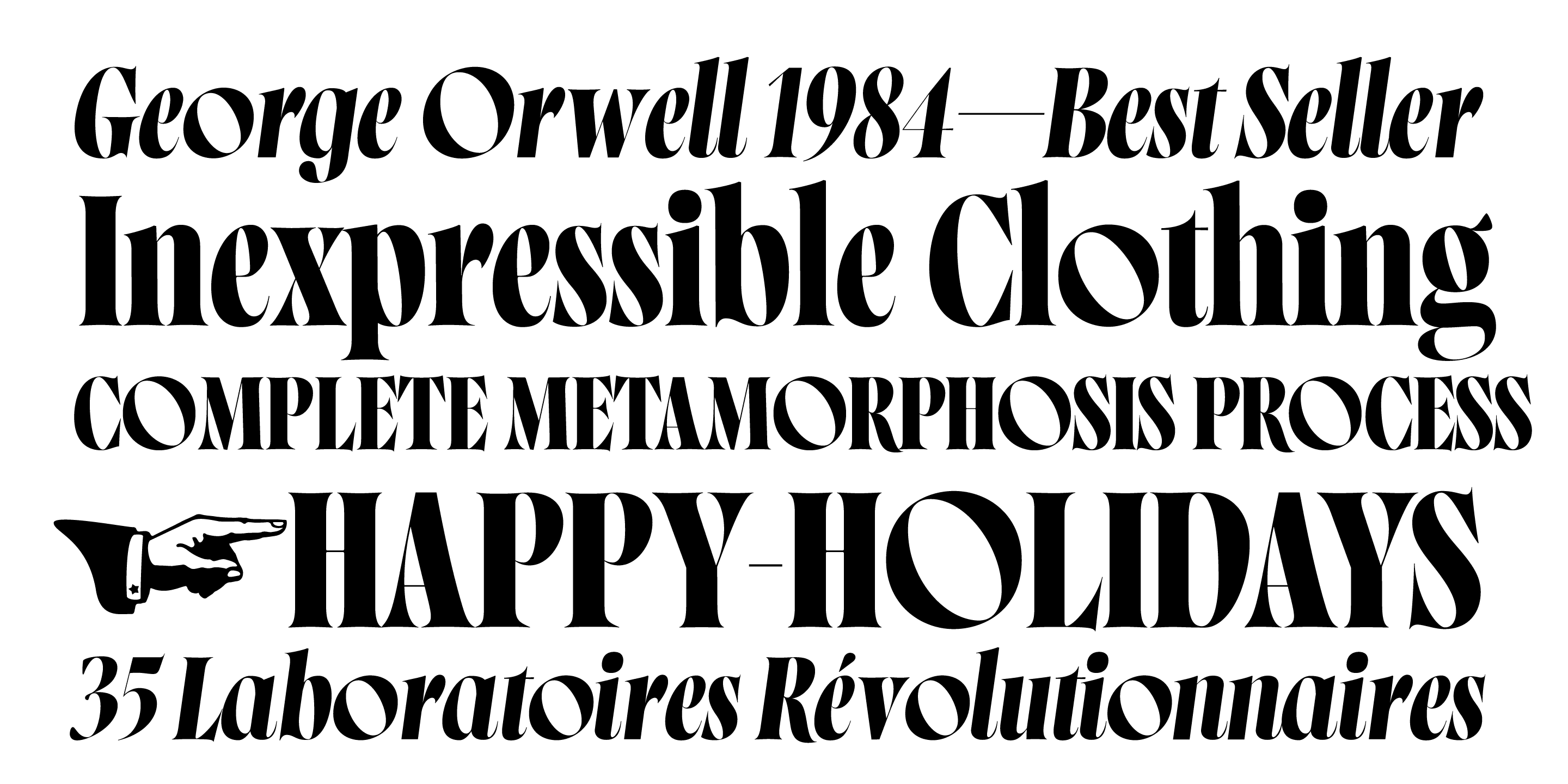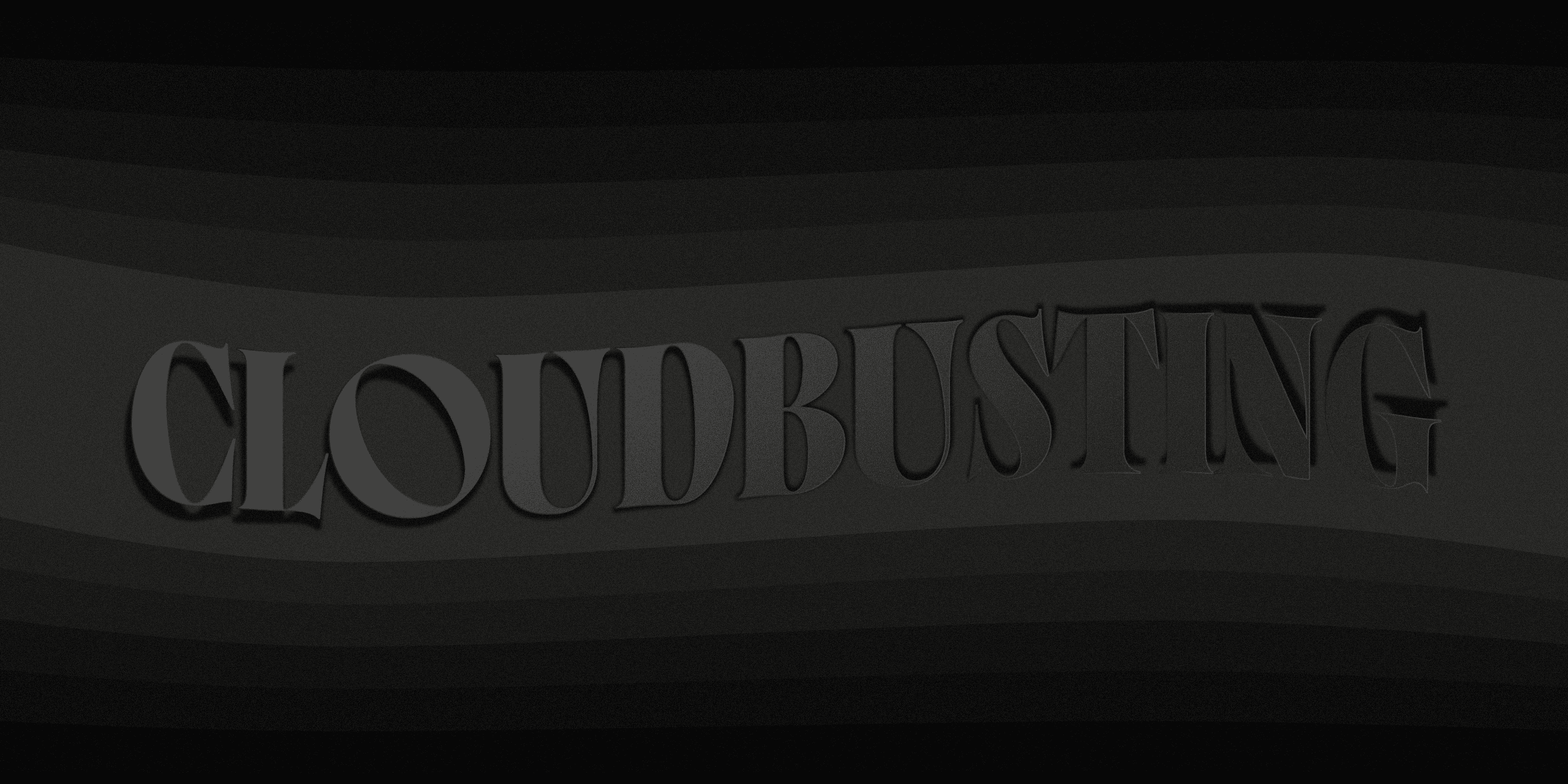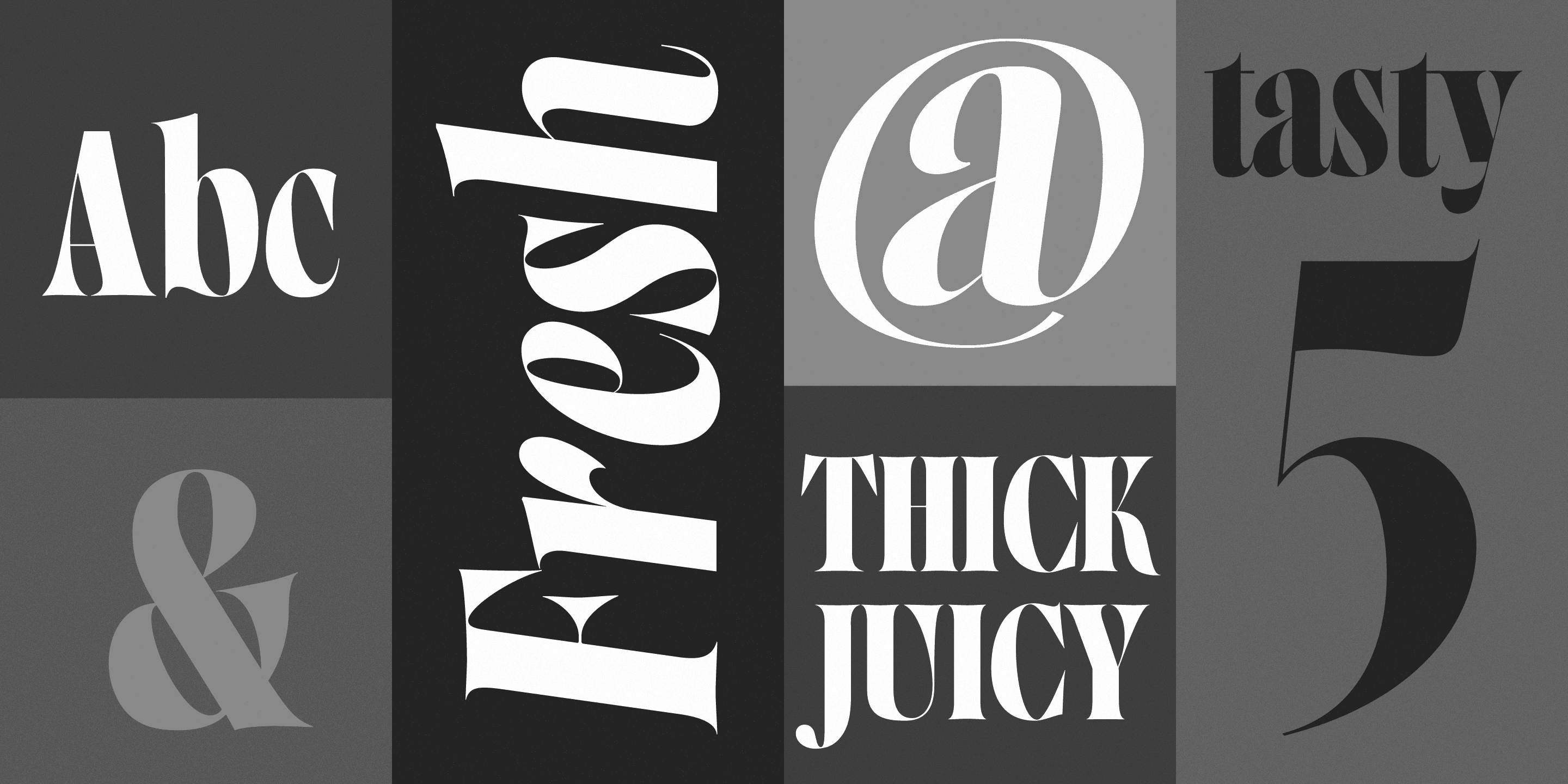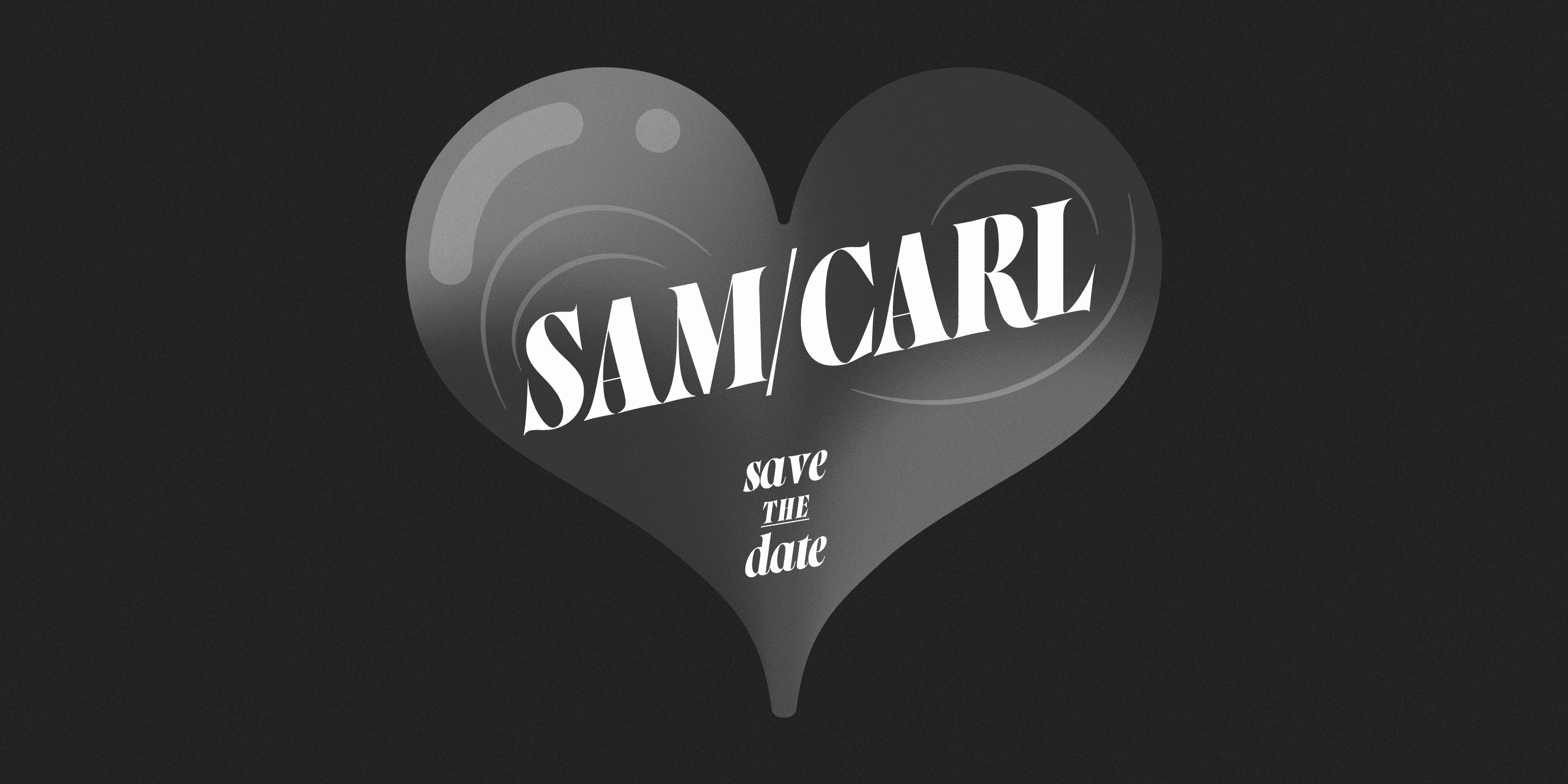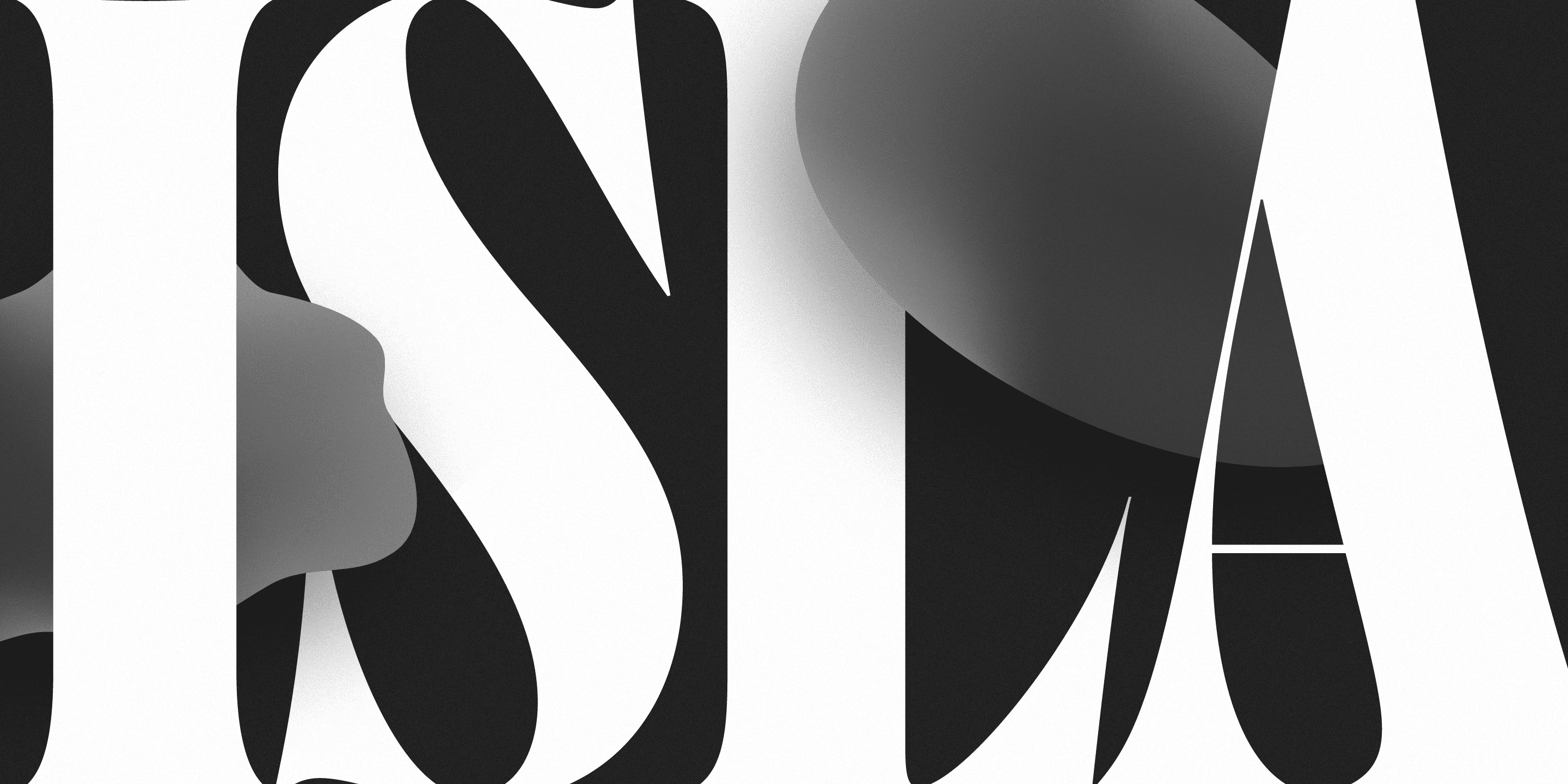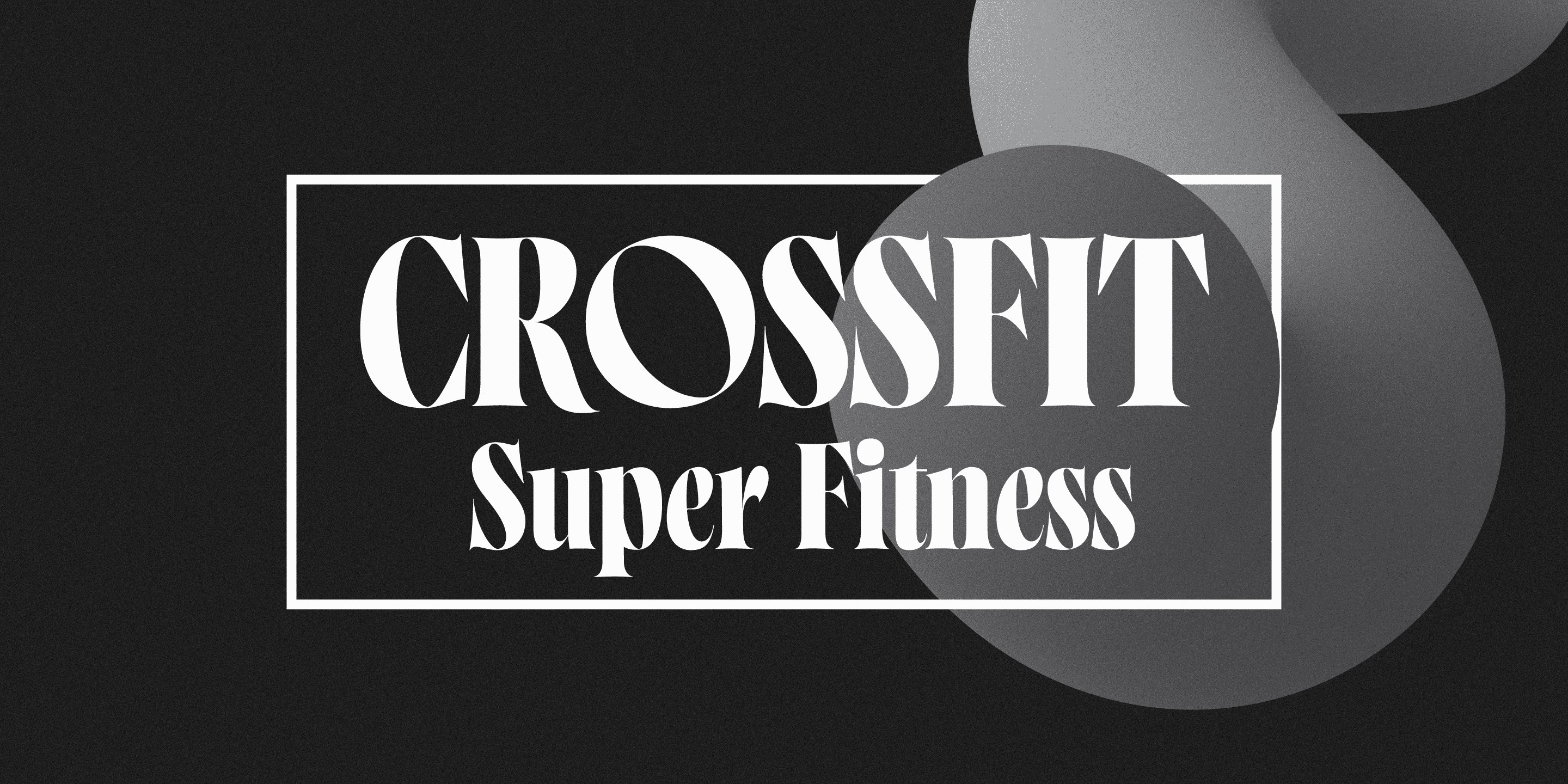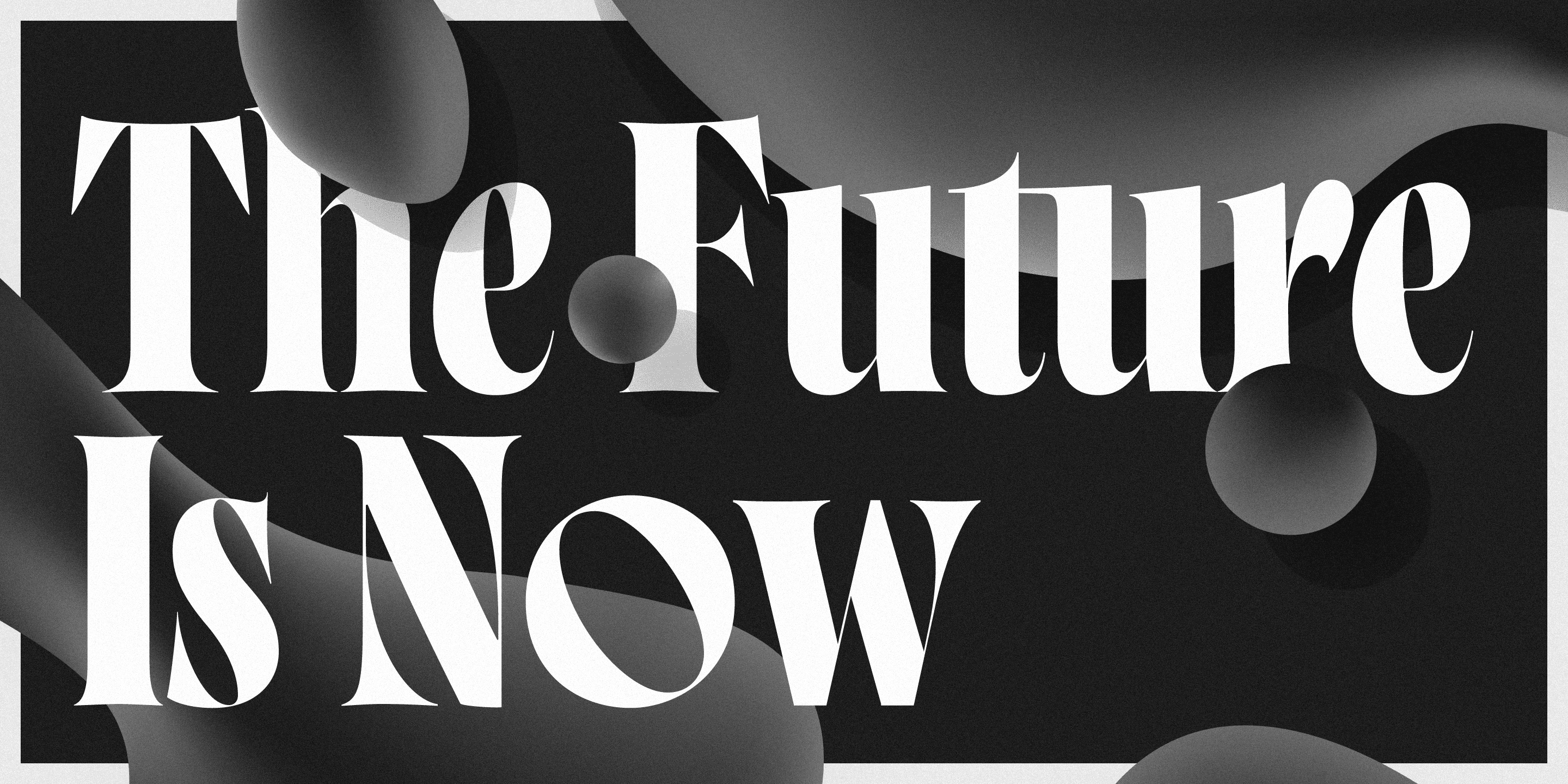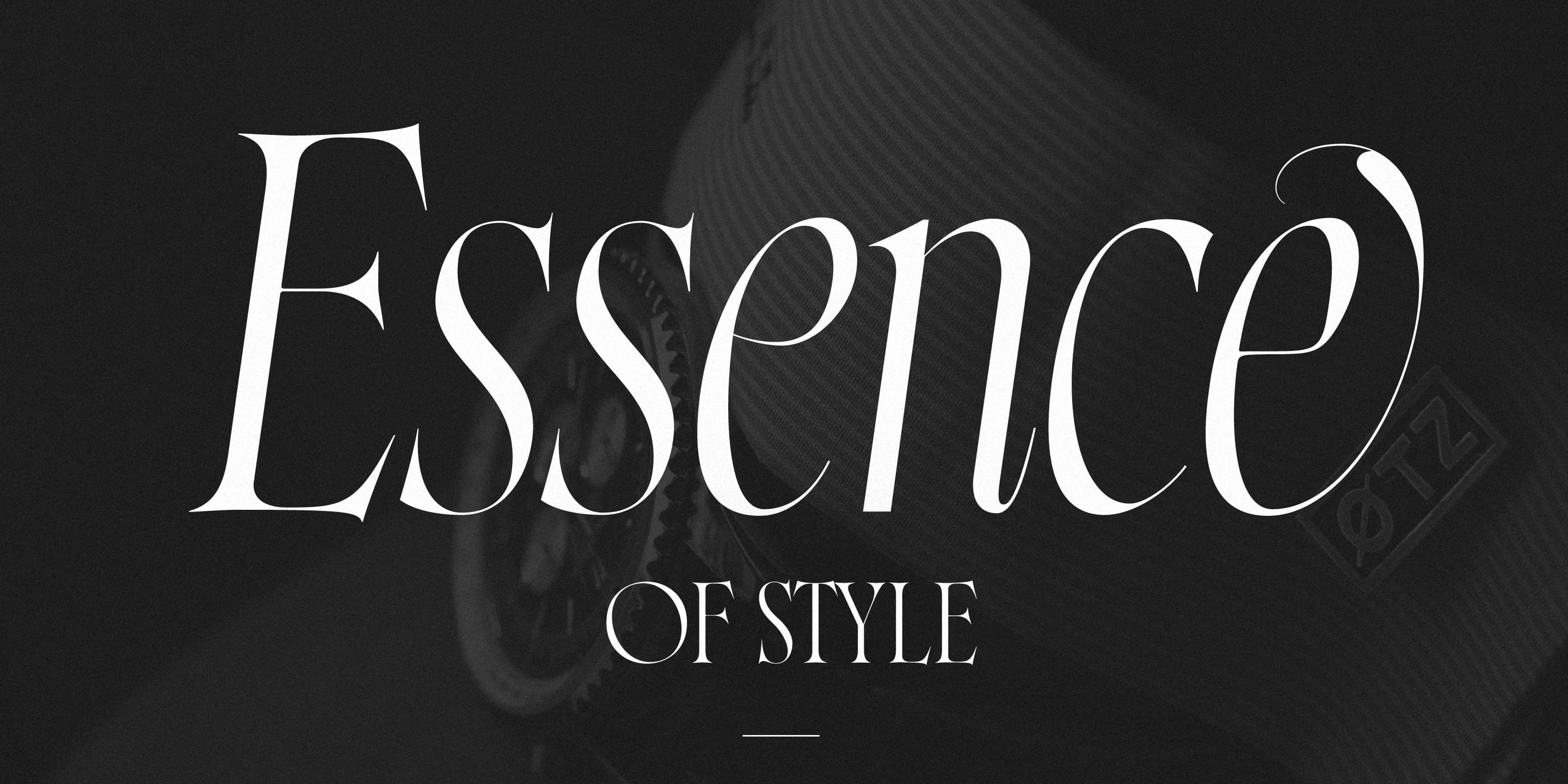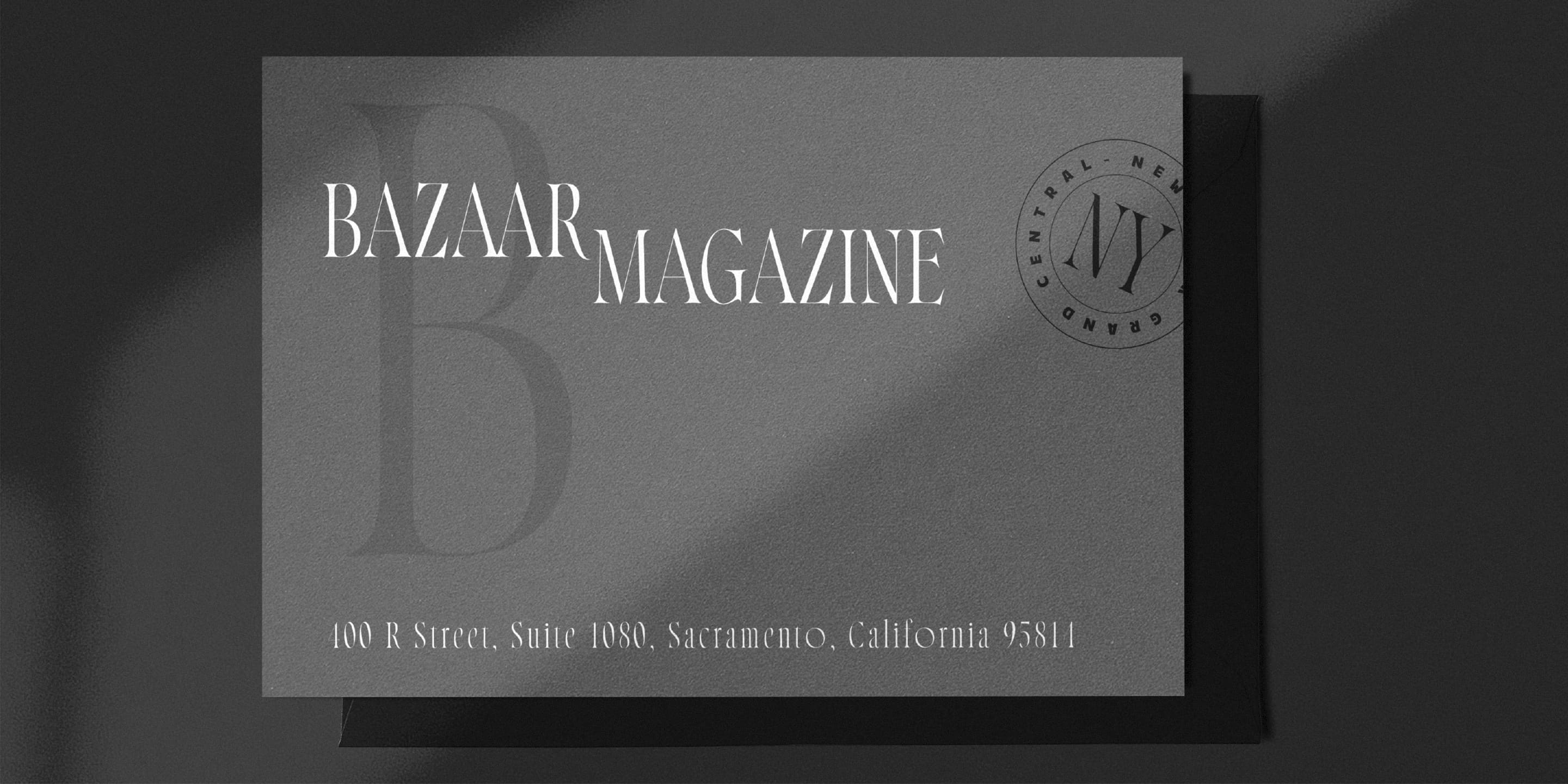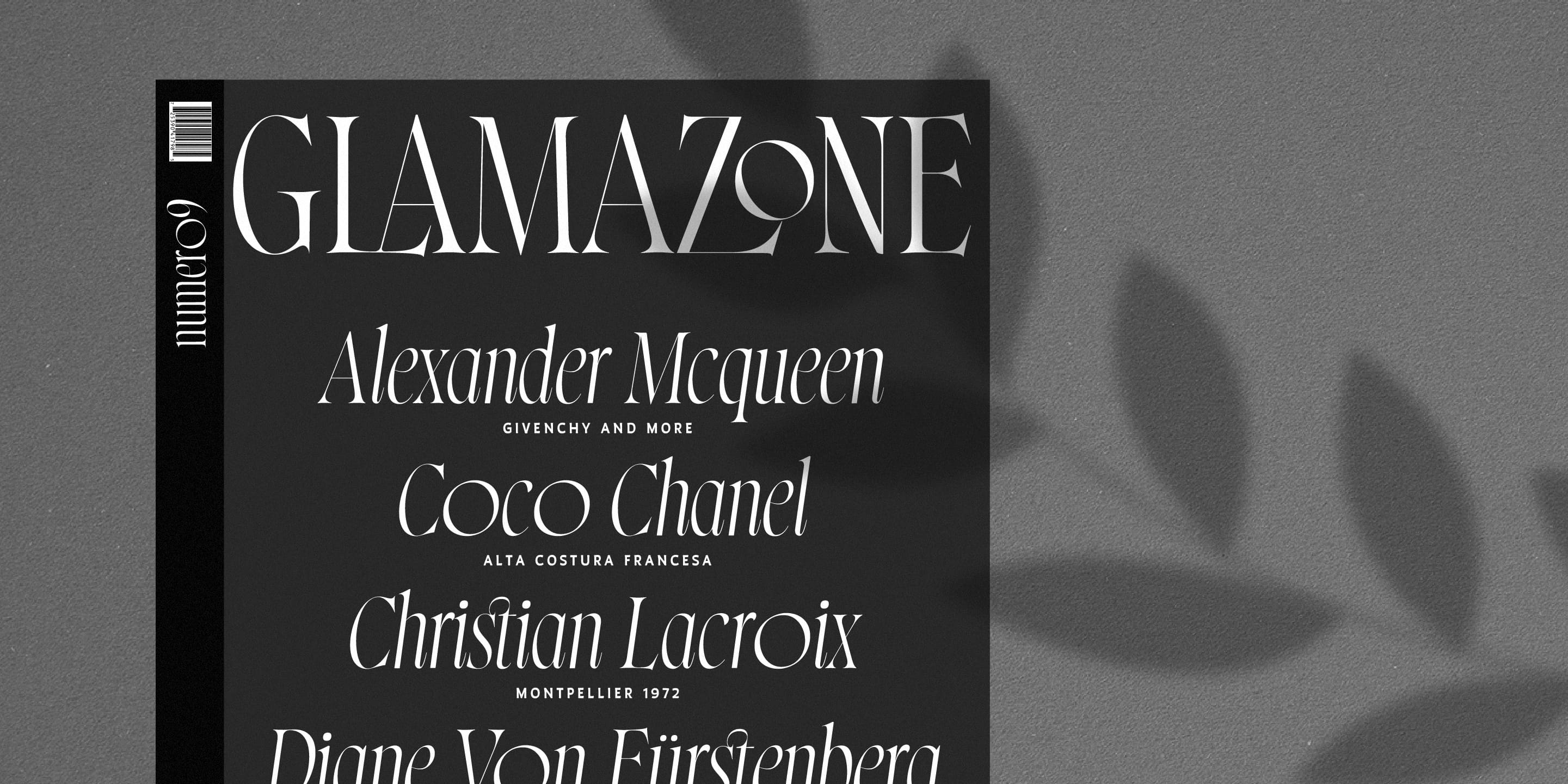
Norman Collection
Norman
Norman Variable
Classy and high contrast serif font
Norman
Designed by Resistenza Type Foundry
Get to know Norman, elegant and fashion forward. This new condensed and high contrast serif font is based on expansion giving a sense of self confidence. The oblique ax was specially added to get a contemporary and innovative sense. Norman is young and idealist, he has a distinctive sense of style. A complete set of ligatures and stylistic alternates is included, this will help the designer to customise and give a special look to any layout. We recommend to use it for big title, magazine, editorial purposes and display.